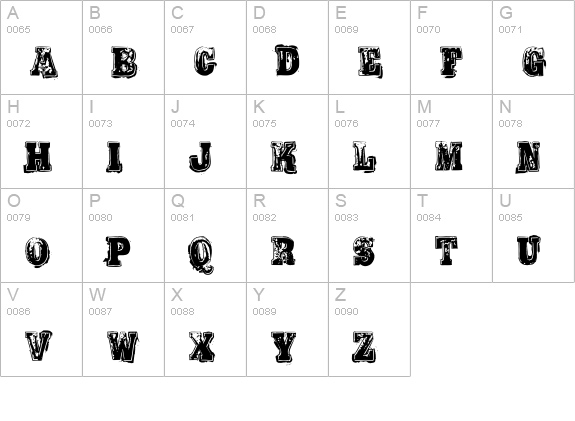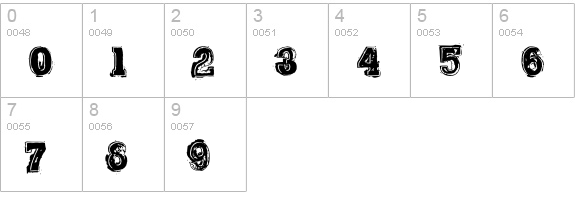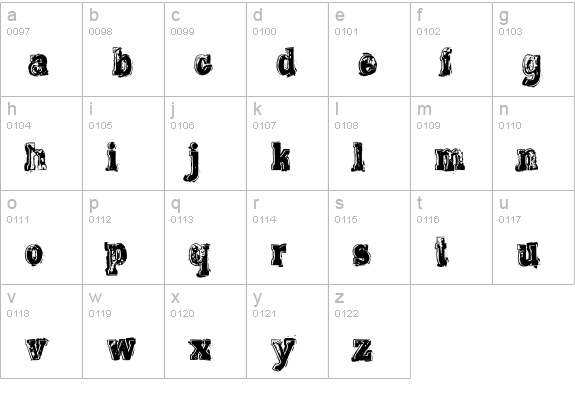
Bold Pressing H2 is a strong, high-contrast variant in the Bold typeface family \xE2\x80\x94 well suited to headlines, attention-grabbing titles, and strong calls-to-action.
Bold Pressing H2 is a striking and powerful font that demands attention with its bold and impactful style. The strong lines and sharp edges give this font a modern and dynamic look, making it perfect for any design project that requires a touch of boldness. Whether you're creating posters, logos, or website headers, Bold Pressing H2 will make your text stand out and leave a lasting impression. And the best part? Bold Pressing H2 is completely free! You can easily download this fantastic font at FontsMarket.com and start using it in your projects right away. Don't miss out on this opportunity to elevate your designs with the bold and eye-catching Bold Pressing H2 font.